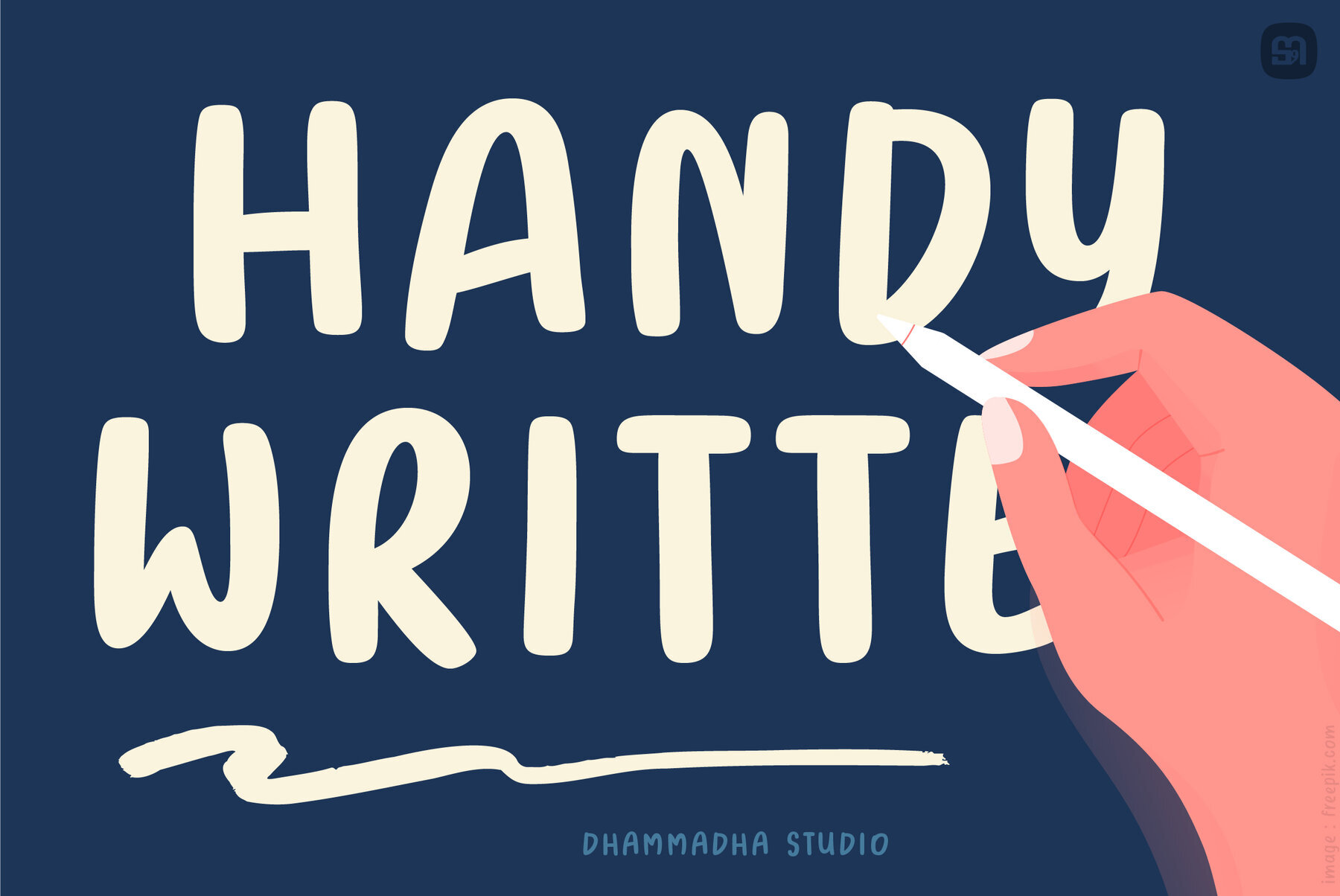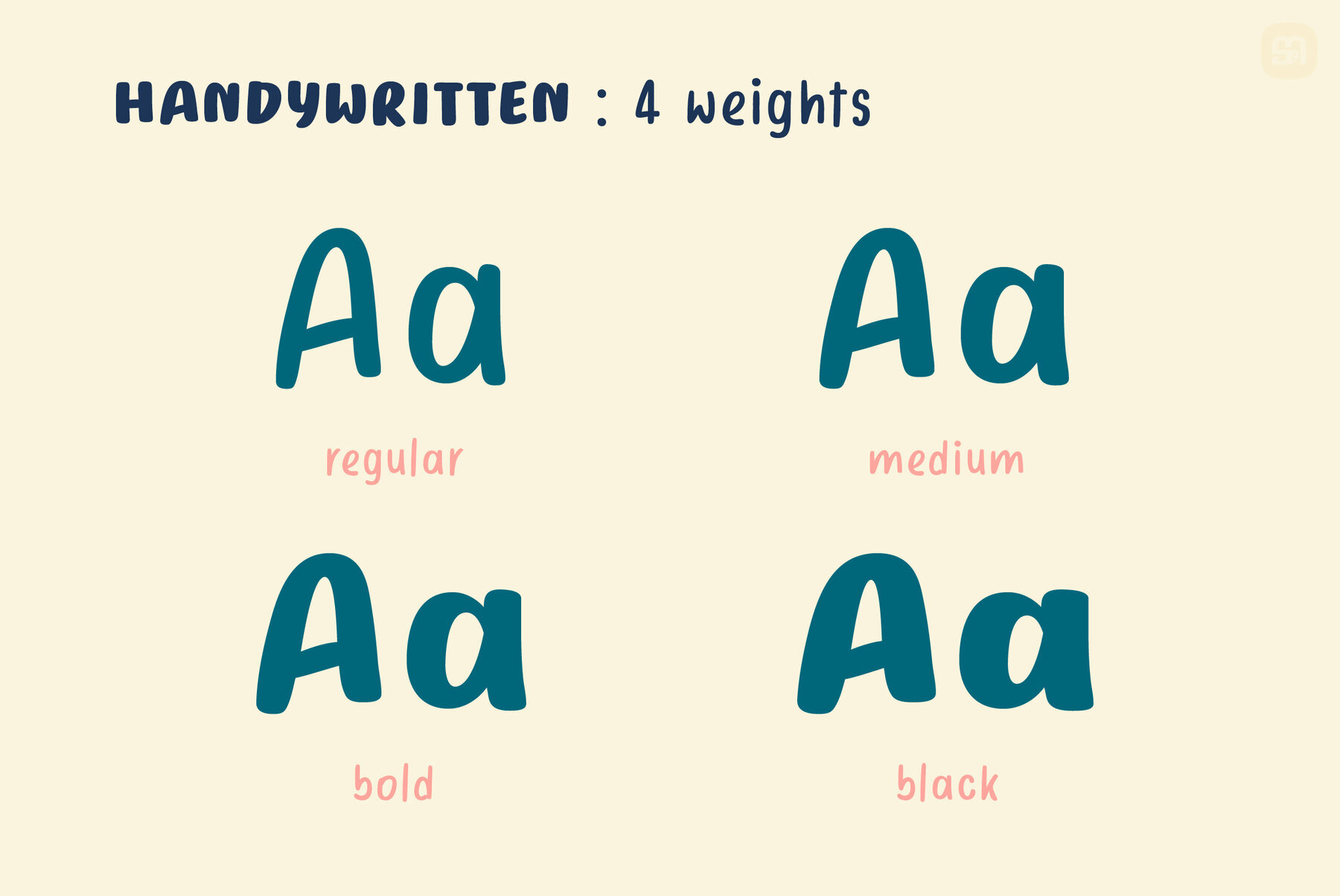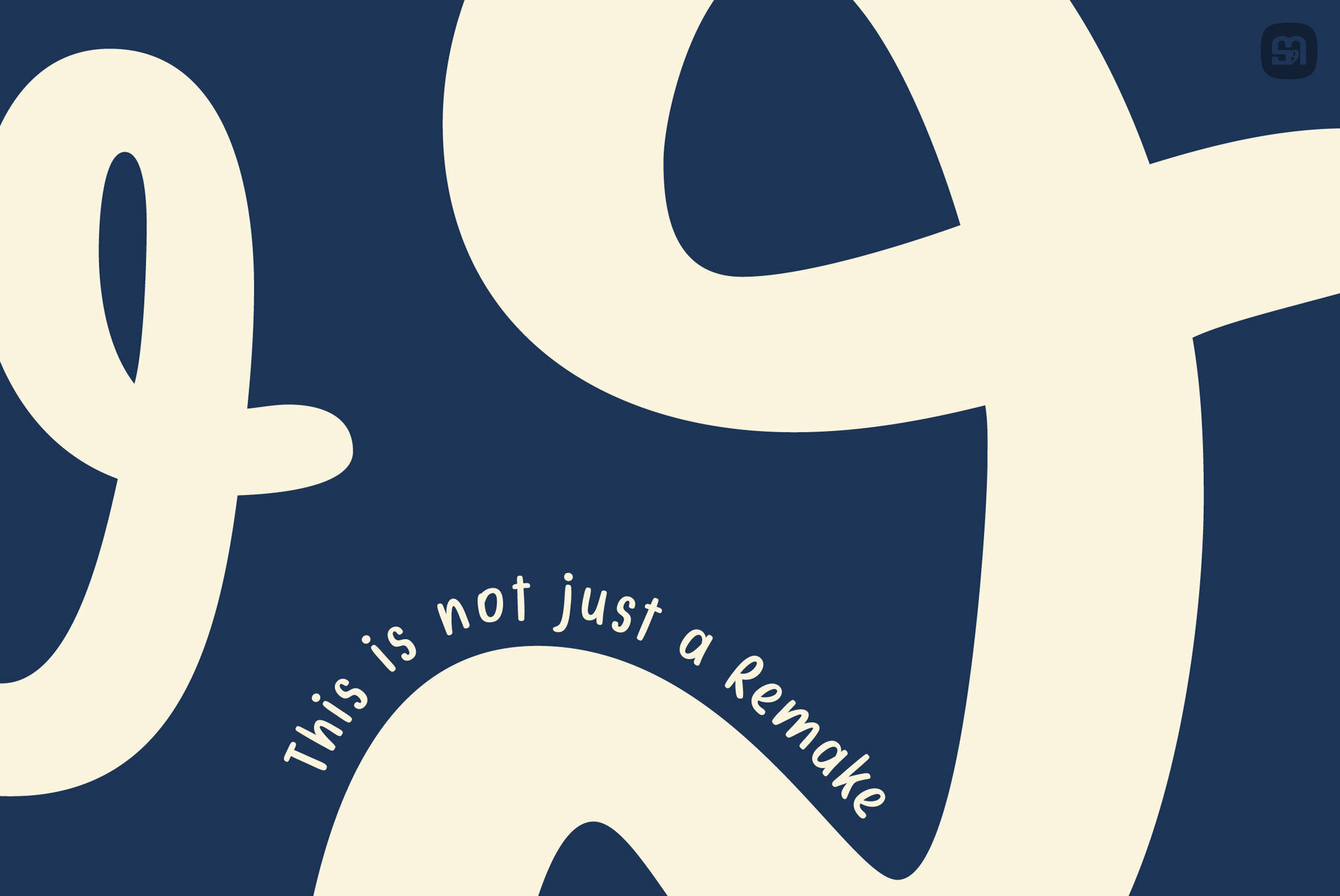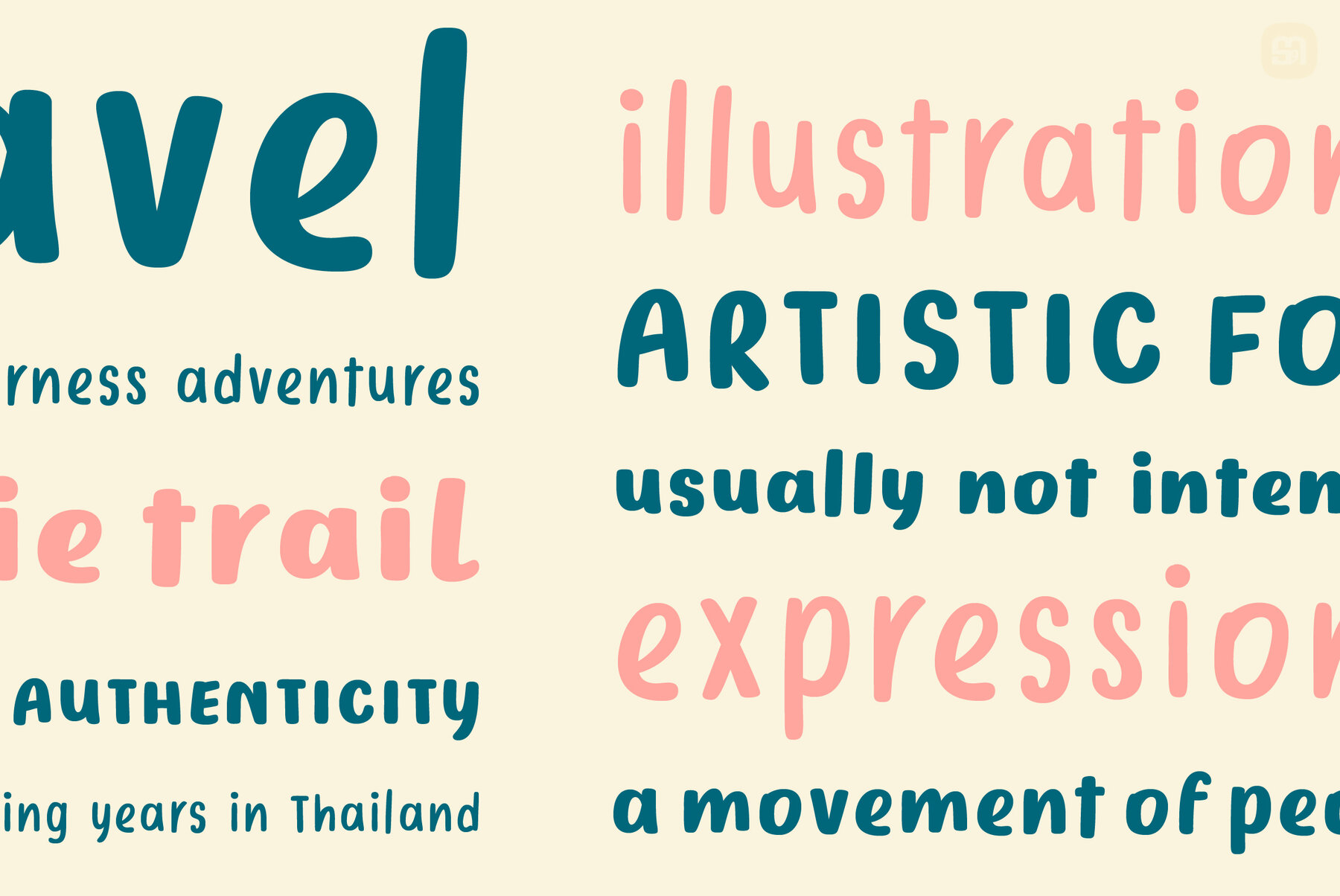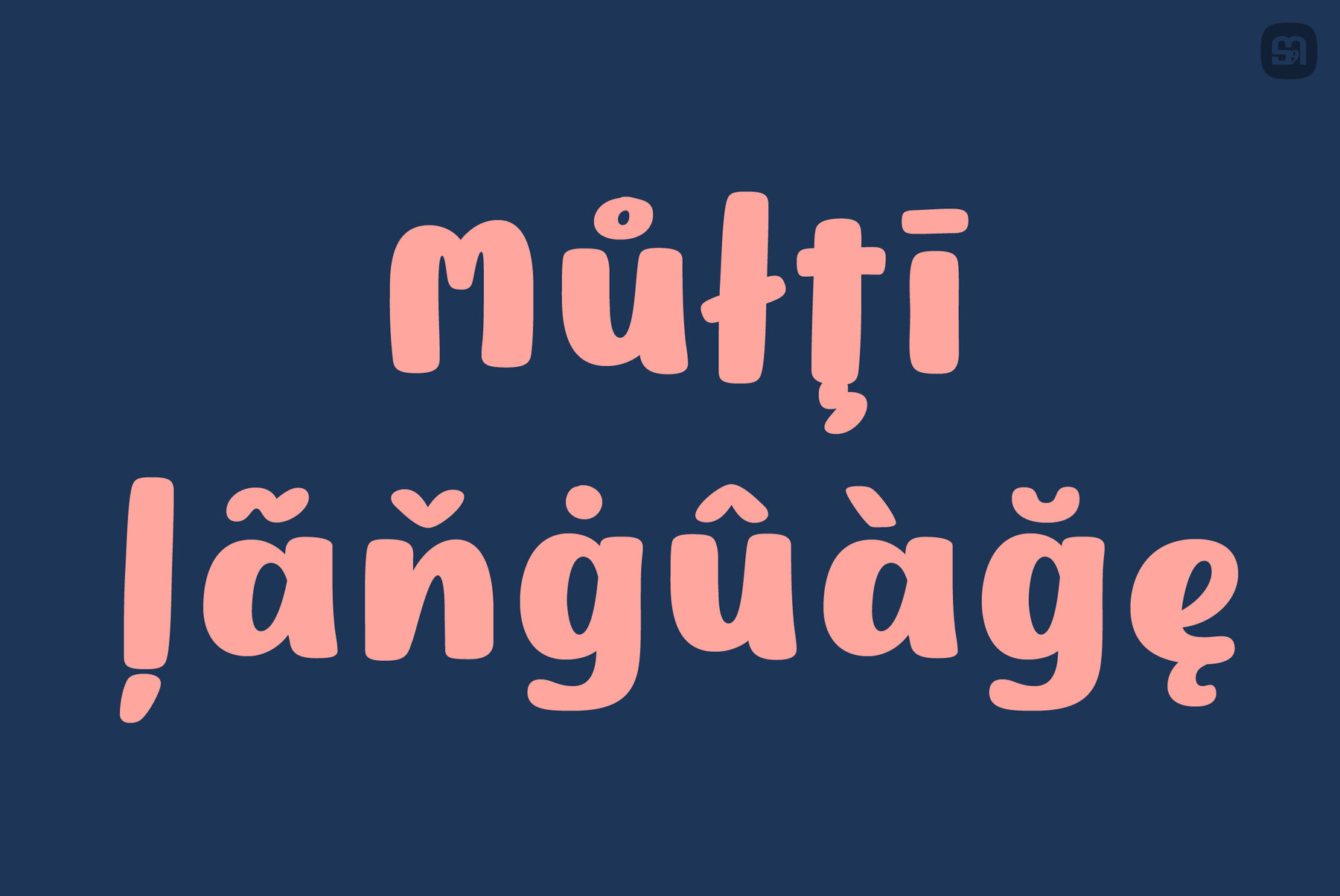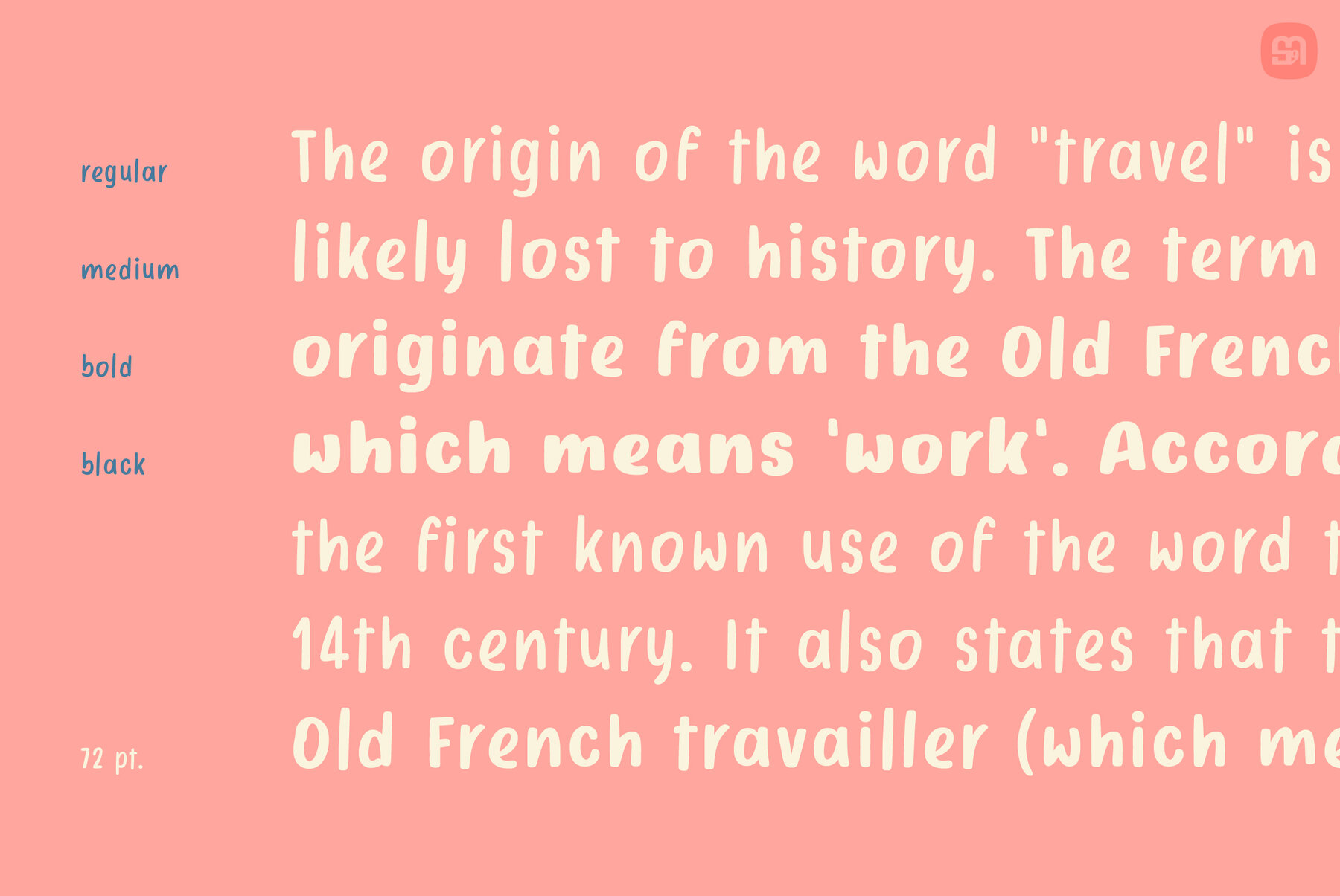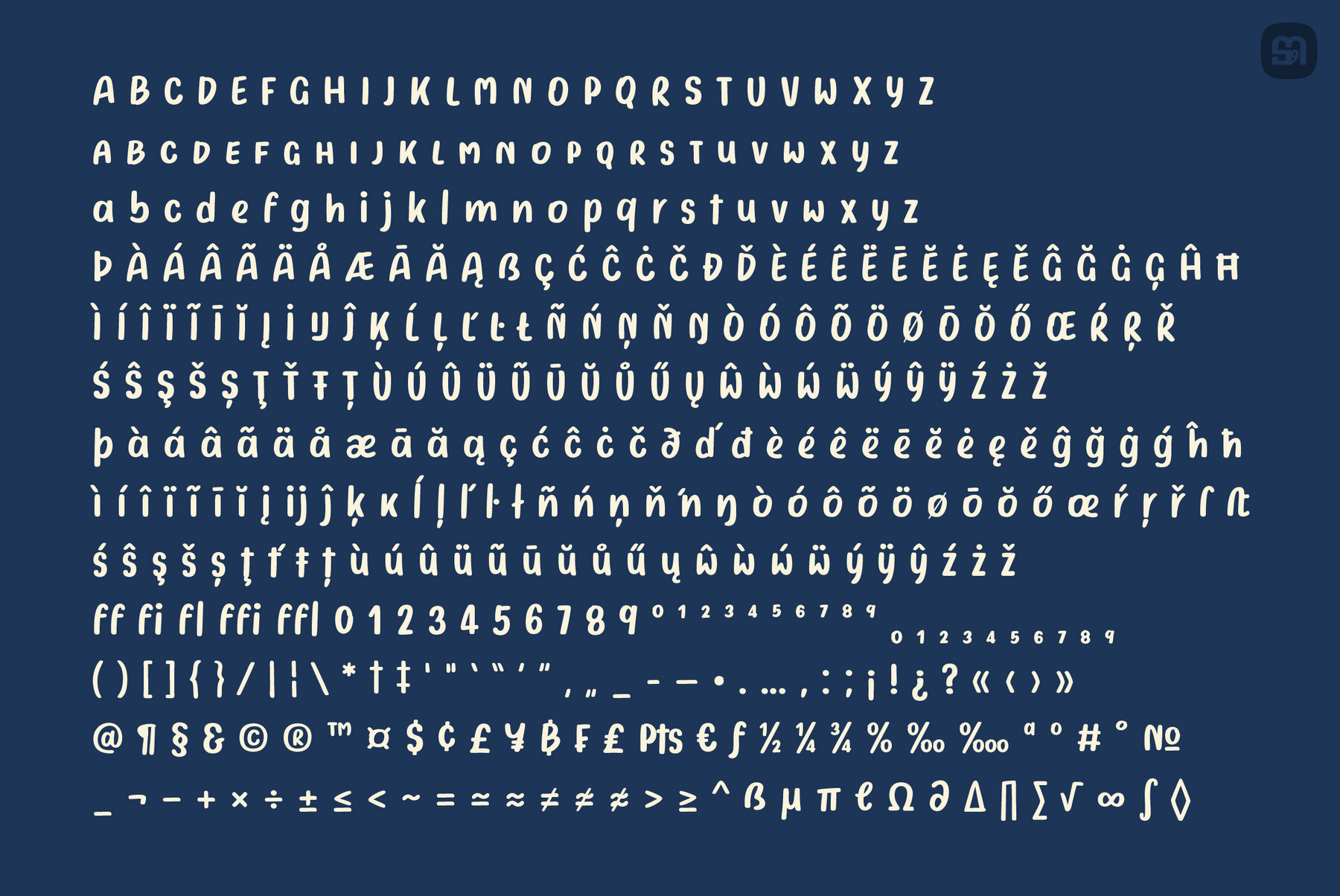
Handywritten Font
Handywritten is a lovely and friendly handwritten font. No matter the topic, this font will be an incredible asset to your fonts’ library, as it has the potential to elevate any creation.